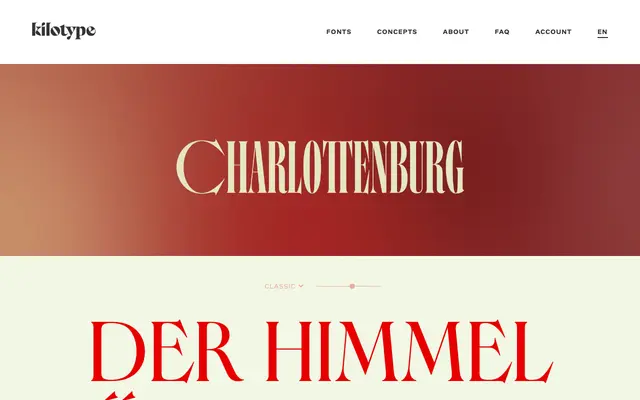
Charlottenburg
An all-caps, high-contrast display serif by William Montrose, drawing on Roman inscriptional proportions and Art Nouveau flourishes across four distinct subfamilies.
Charlottenburg is built for large-scale headlines, with sharp serifs, extreme stroke contrast and letter proportions referencing Trajan-era stonecutting. Four variants extend its range: Classic for titling, Compressed for ultra-narrow headlines, Circles for mixed-width settings, and Choices for manual glyph-width switching via keystroke. Released as a concept font, it is free to license for individuals and organisations below €100k annual revenue, with further development including a lowercase and extended language support planned.
An all-caps, razor-sharp high contrast serif with exaggerated serifs and Art Nouveau inflections, designed purely for display and titling use at large sizes. The extreme contrast and period proportions place it firmly in the display category.